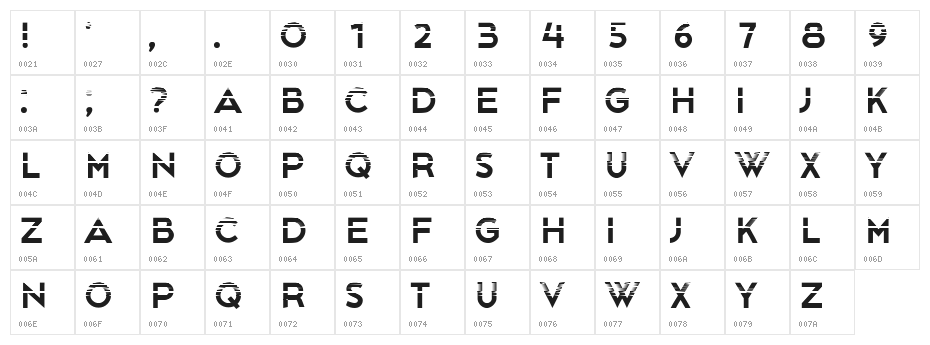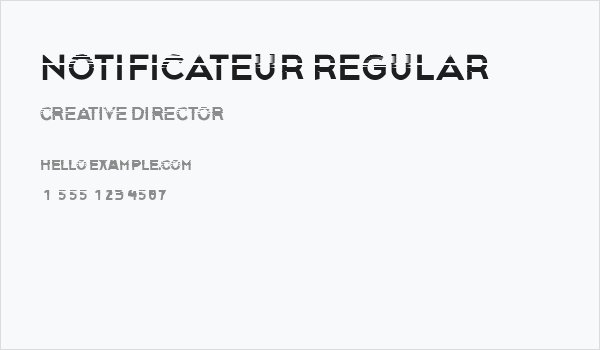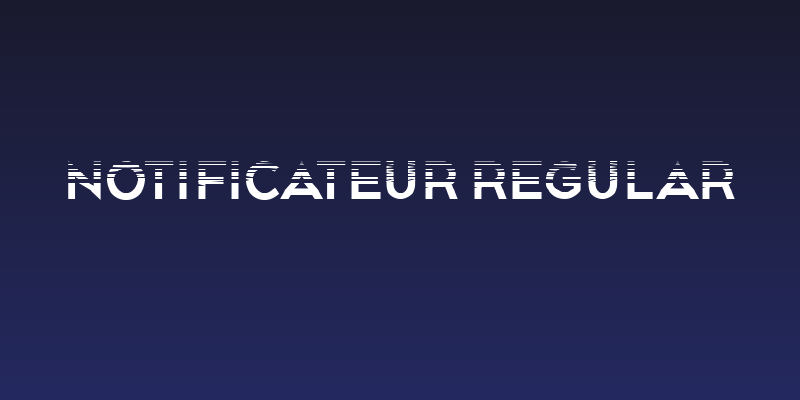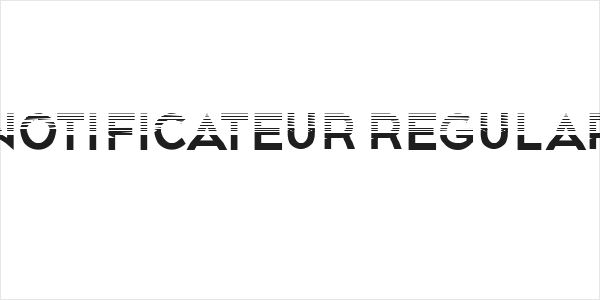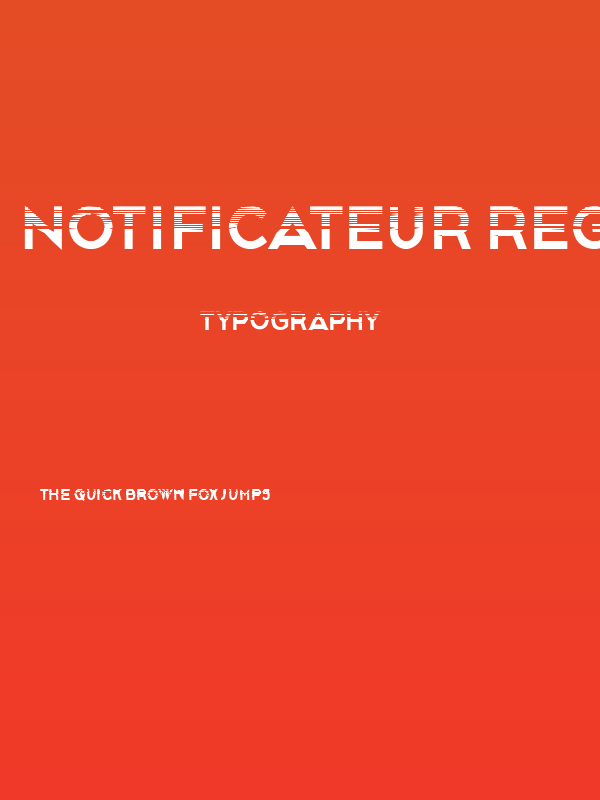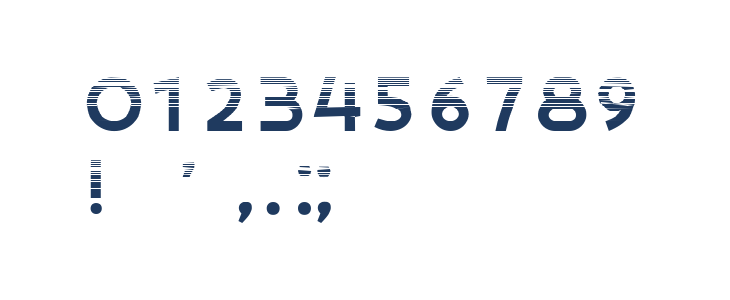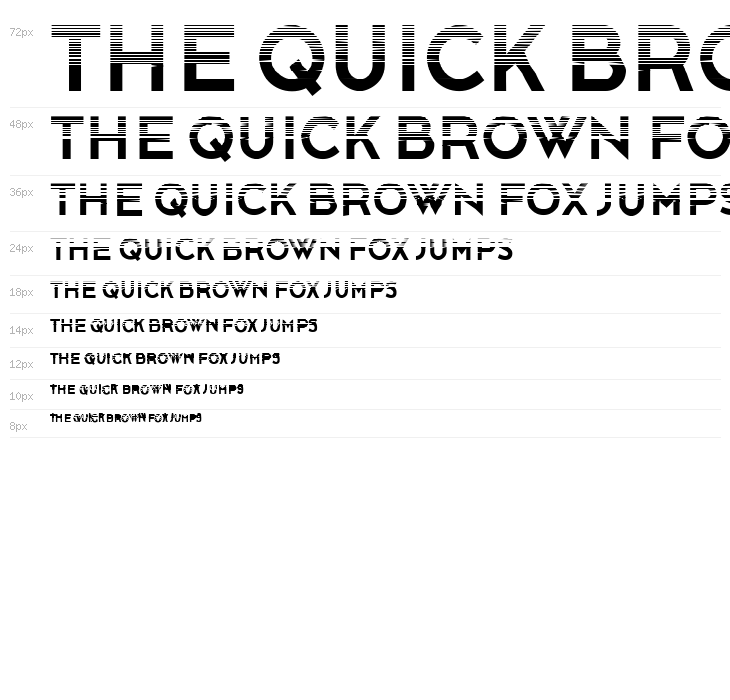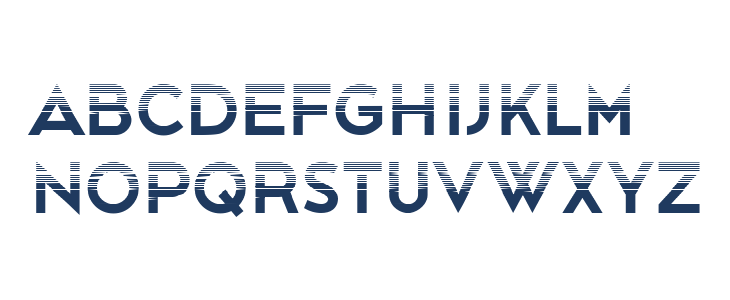
Notificateur Regular Font
Notificateur Regular Description
This font features a bold, modern design with a unique striped pattern running horizontally through each character. The uppercase letters are strong and geometric, while the lowercase letters maintain the same boldness and style. Numbers are equally bold, ensuring consistency across all characters. The special characters, including punctuation marks, follow the same design principles, making them stand out. The font's distinct style makes it ideal for attention-grabbing headlines and creative projects that require a contemporary and edgy look.
| Proposed Projects | Ideal for branding, posters, headlines, and any creative project that requires a modern and bold aesthetic. |